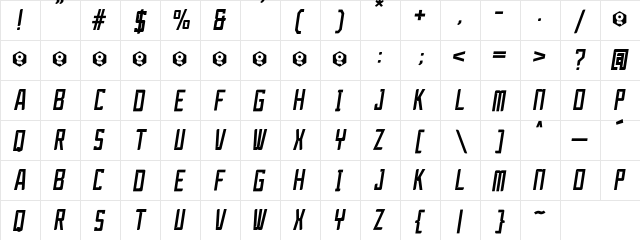
JerrySport Italic Med Italic
JerrySport Italic Med has the bold swagger of sports branding: strong, assertive letterforms designed to dominate headlines and jerseys alike. The slanted form adds forward momentum and visual energy.
A natural choice for gym brands, fantasy sports, jersey lettering, and action-driven headlines.
Pro Tip: Use JerrySport Italic Med in all-caps headlines where its athletic energy can fully express itself. Pair with a solid, simple sans for supporting text.